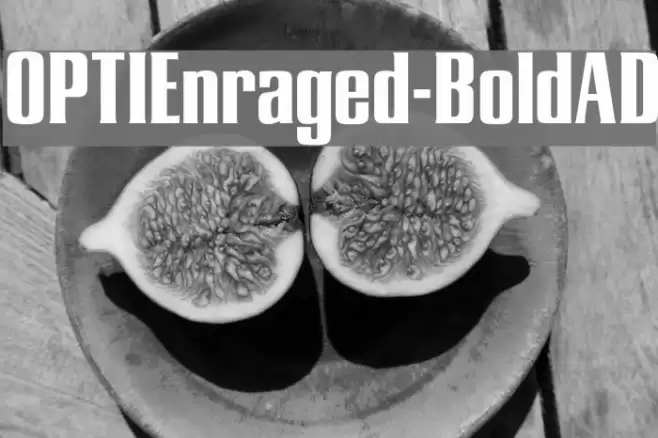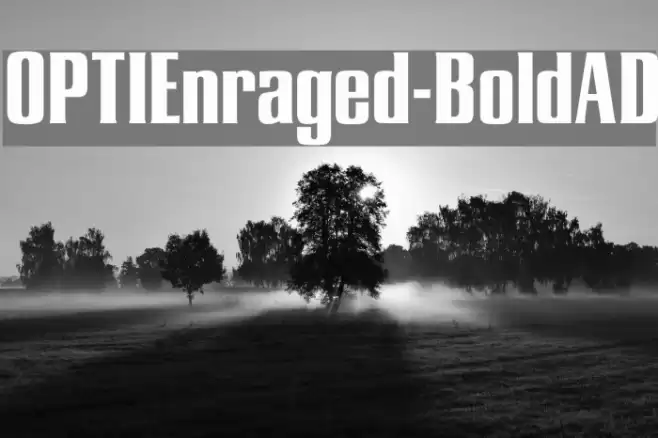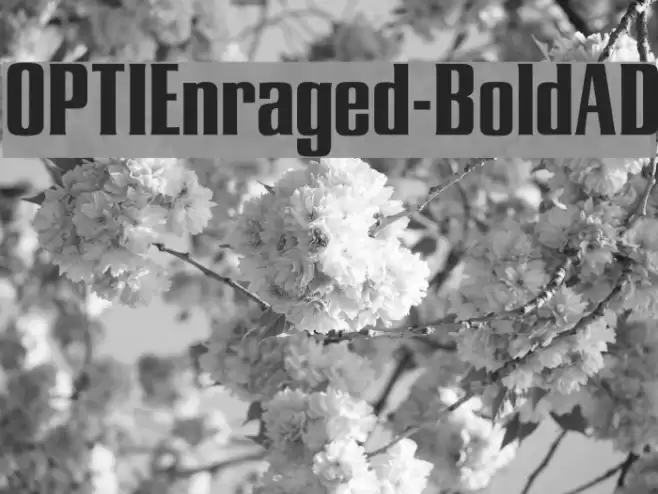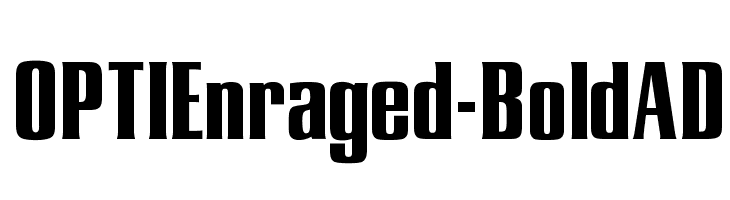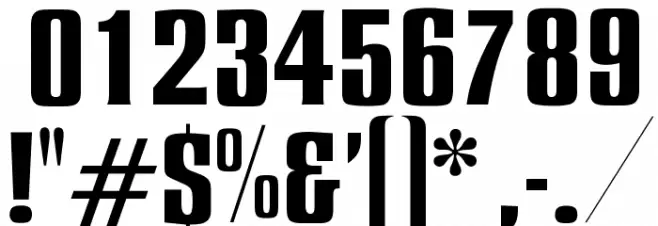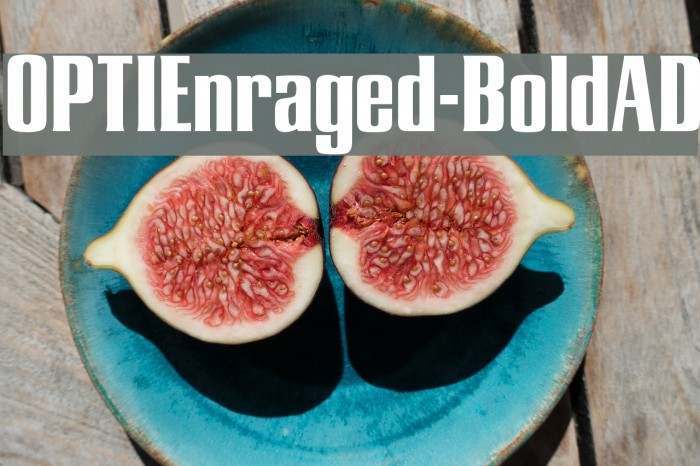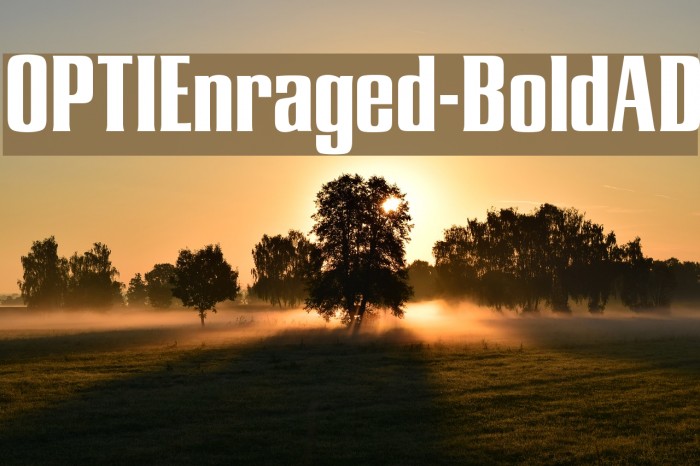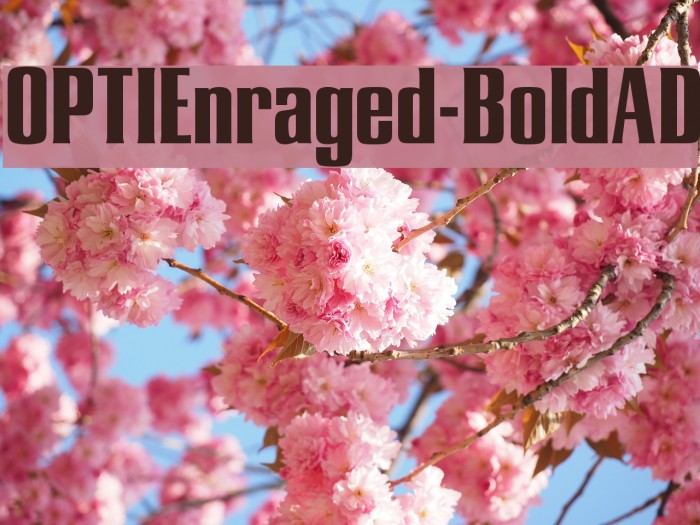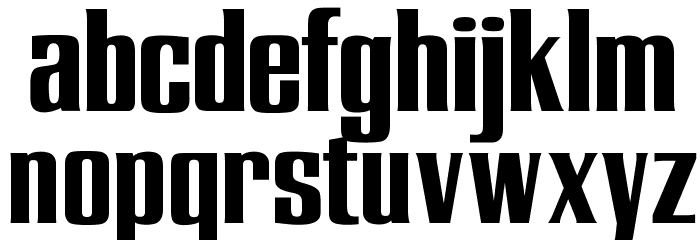
OPTIEnraged-BoldAD Font
OPTIEnraged-BoldAD Description
This font features a bold and assertive style with thick, uniform strokes that convey strength and impact. The uppercase and lowercase letters are designed with a consistent width, creating a cohesive and balanced appearance. The numerals are equally bold, ensuring readability and emphasis. Special characters are included, maintaining the bold aesthetic throughout. The overall design is modern and powerful, making it suitable for projects that require a strong visual presence.
A bold, modern font with thick, uniform strokes for a strong visual impact from Uncategorized fonts.
- Proposed Projects: Ideal for headlines, posters, branding, and any design requiring a bold statement.